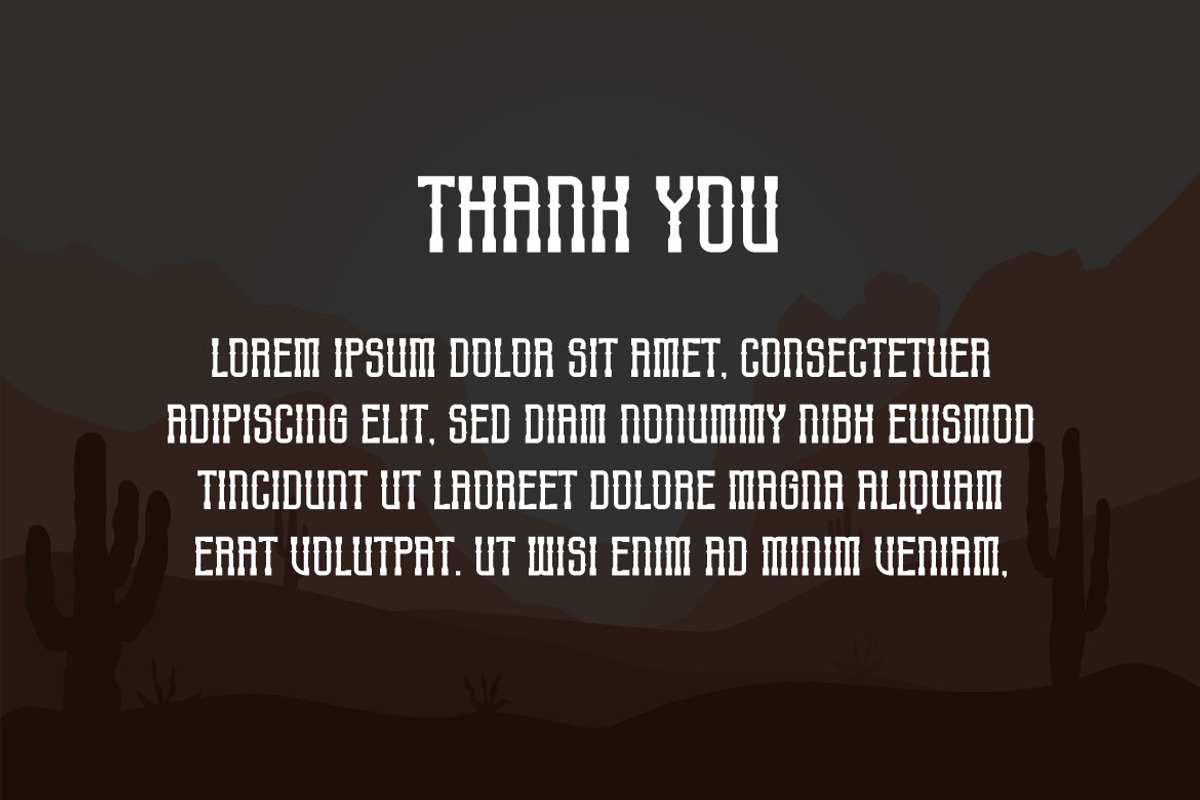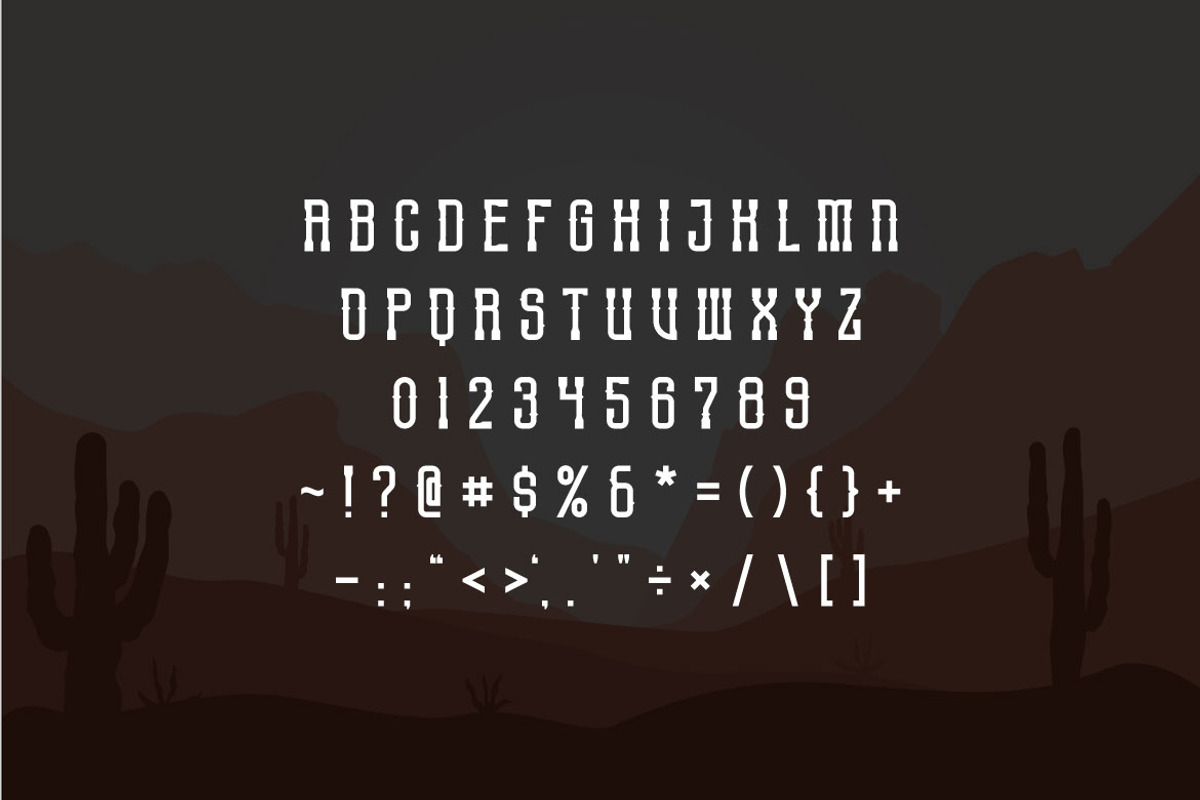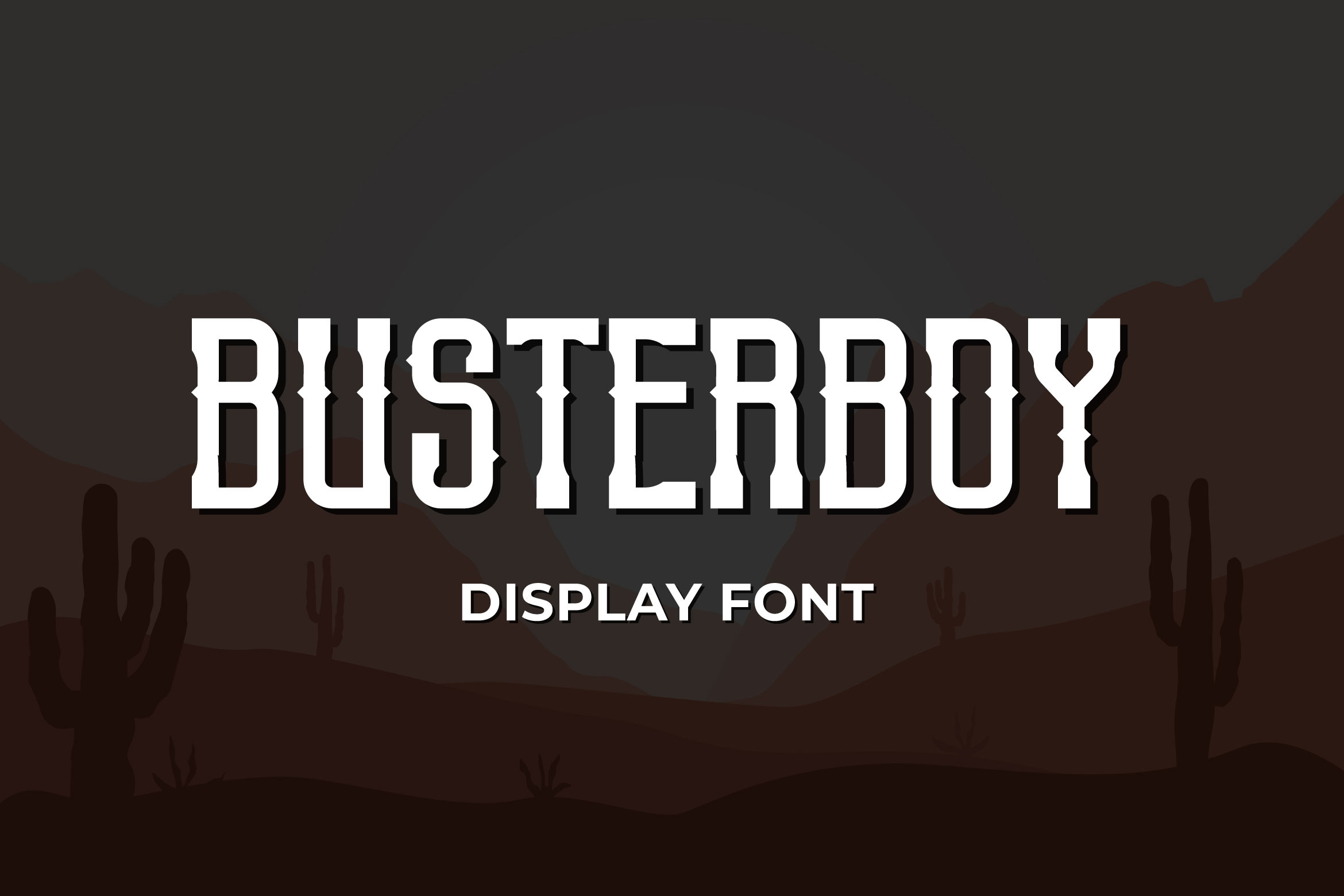
Busterboy - Display Font
If you are looking for a vintage display font, meet BUSTERBOY
Busterboy is perfect for any works, such as sport and esport logo and content card, book title, headline of news, banner, flyer, stationery and many more. It also can be used in any size work.